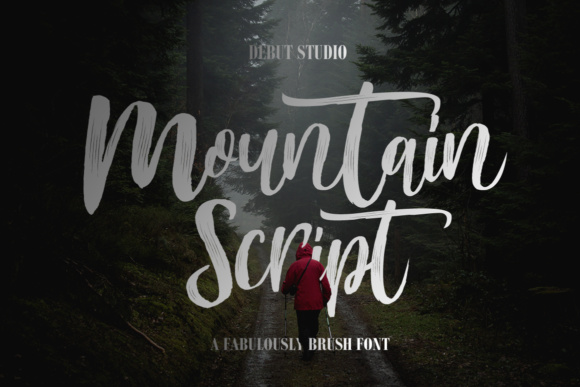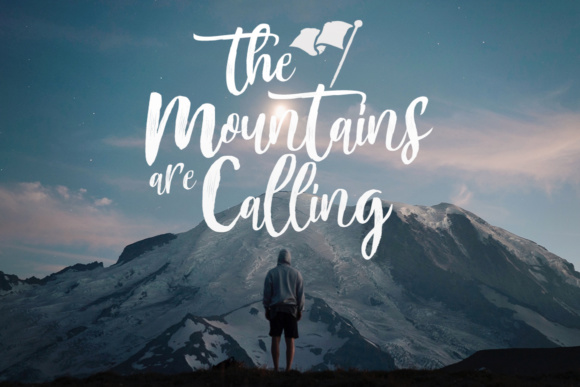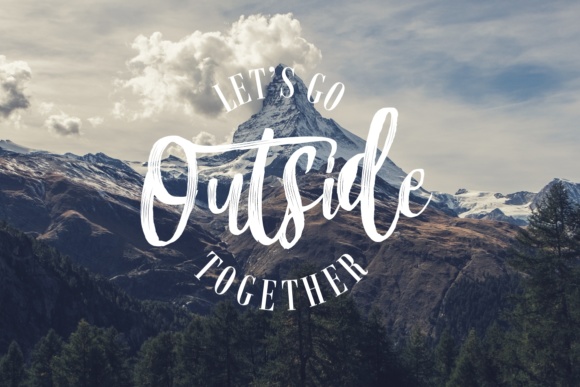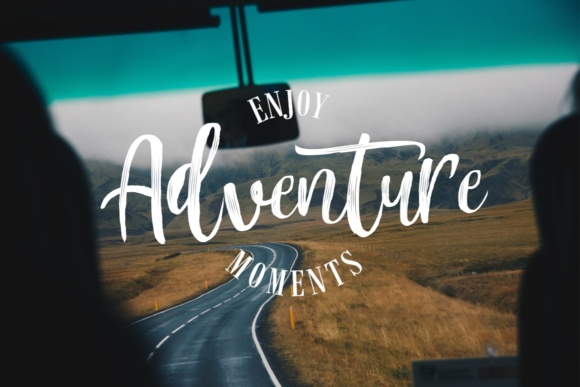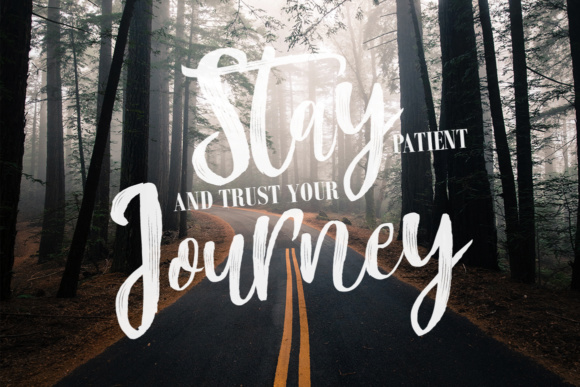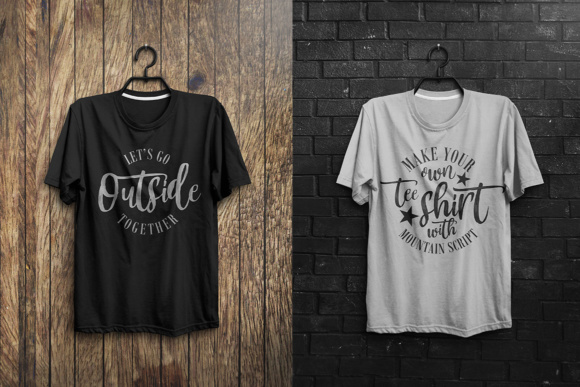
Mountain Script Font
About Mountain Script Font
The Mountain is a striking script font. It has a good readability which makes it perfect for logos, headings, magazines, newspapers, websites, and every other design which needs a good looking a script.